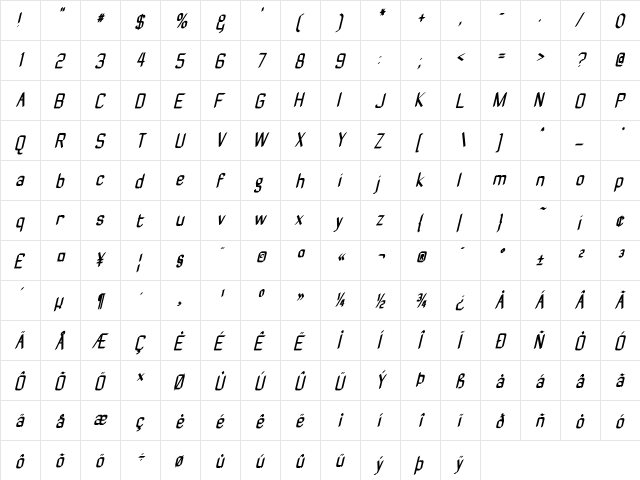
ZyphyteCondense Medium Italic
Design Context for ZyphyteCondense Typeface
ZyphyteCondense takes a measured approach to typography — its balanced proportions and neutral character make it a reliable workhorse for both digital and print work. Its italic angle brings a sense of urgency and motion to the letterforms. Its narrow stance lets it pack a punch even in space-constrained designs.
Pro Tip: Use ZyphyteCondense for emphasis, pull quotes, and subheadings where its slanted energy can add rhythm to the layout.